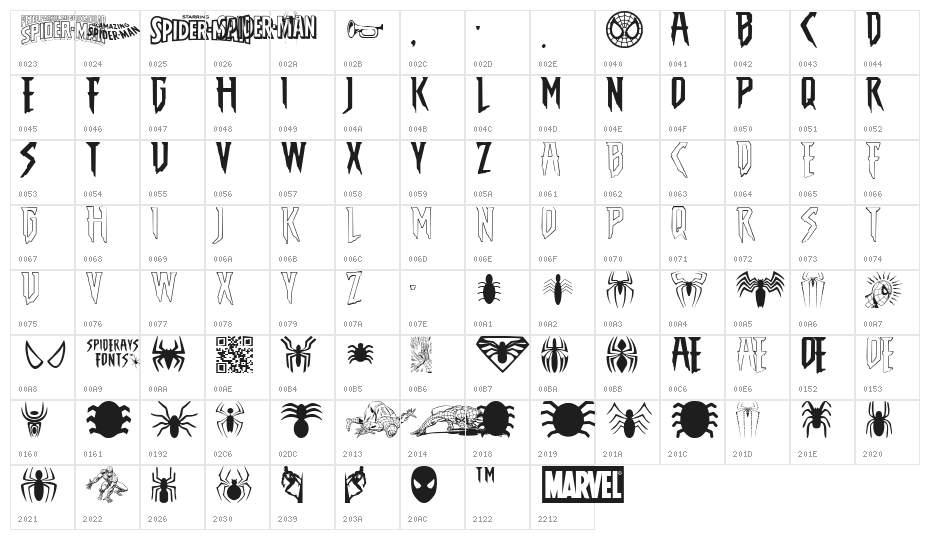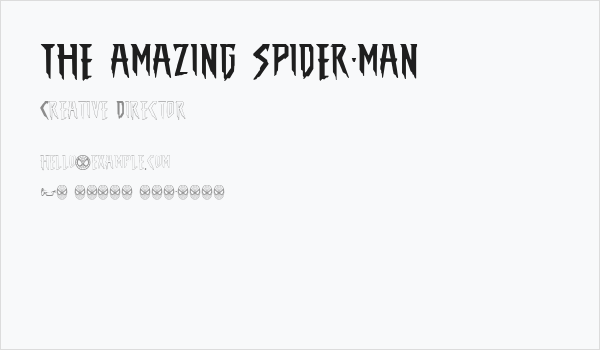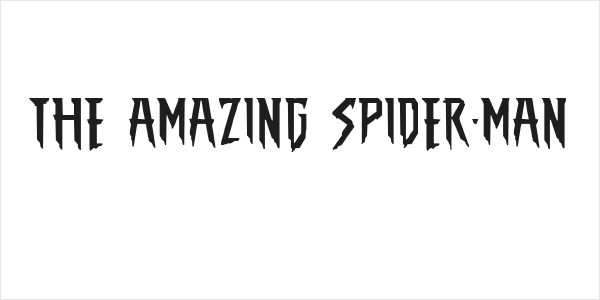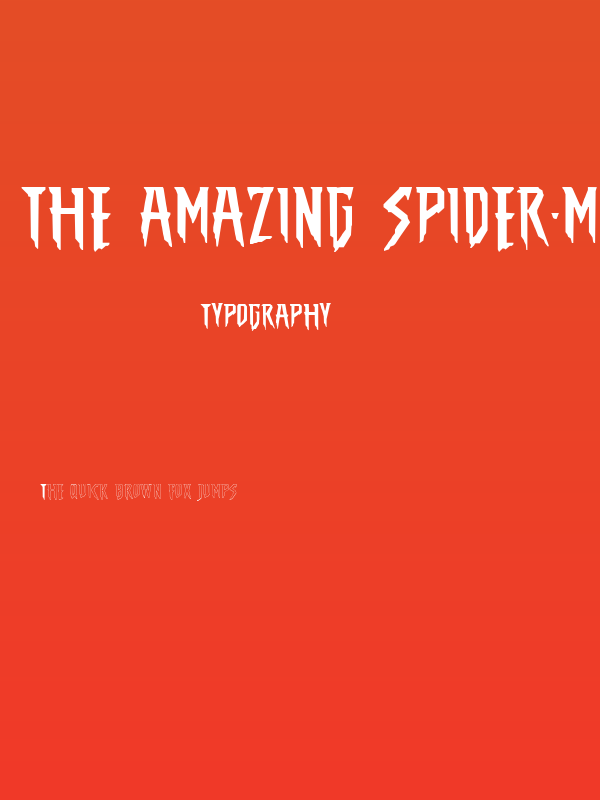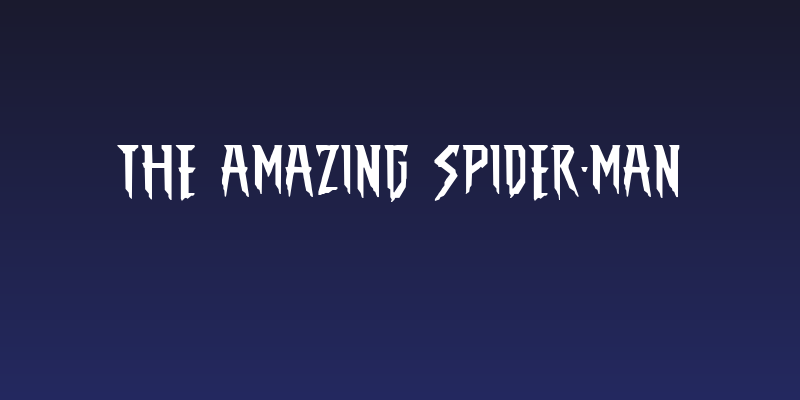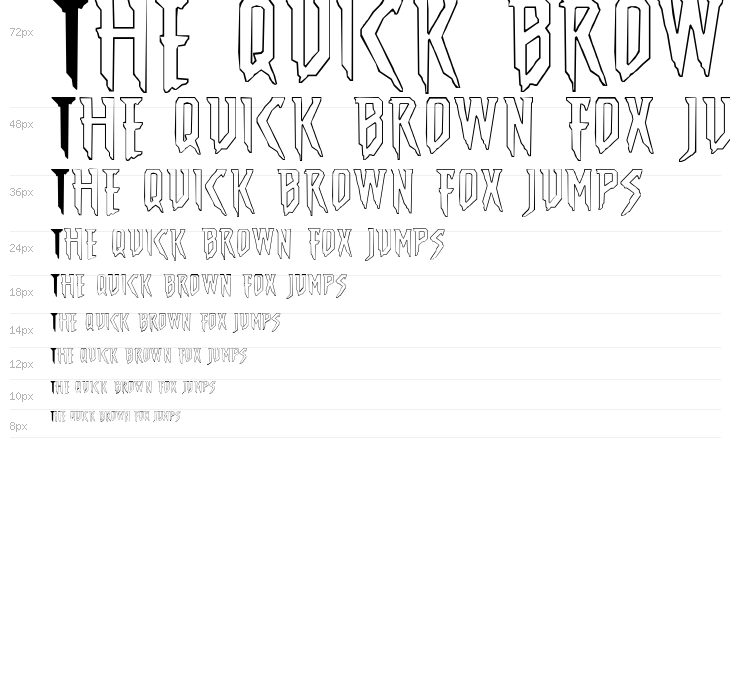
THE AMAZING SPIDER-MAN Font
THE AMAZING SPIDER-MAN Description
This font features a bold and dynamic design, reminiscent of comic book styles. The uppercase letters have sharp, angular edges, giving them a striking and powerful appearance. The font is highly stylized, with a sense of movement and energy that captures attention. It is designed to evoke a sense of action and adventure, making it ideal for themes related to superheroes or dynamic storytelling. The characters are tightly spaced, enhancing the boldness and impact of the text. This font is perfect for creating eye-catching titles and logos that need to convey excitement and intensity.
| Proposed Projects | Comic book titles, superhero-themed posters, action movie logos, video game covers. |